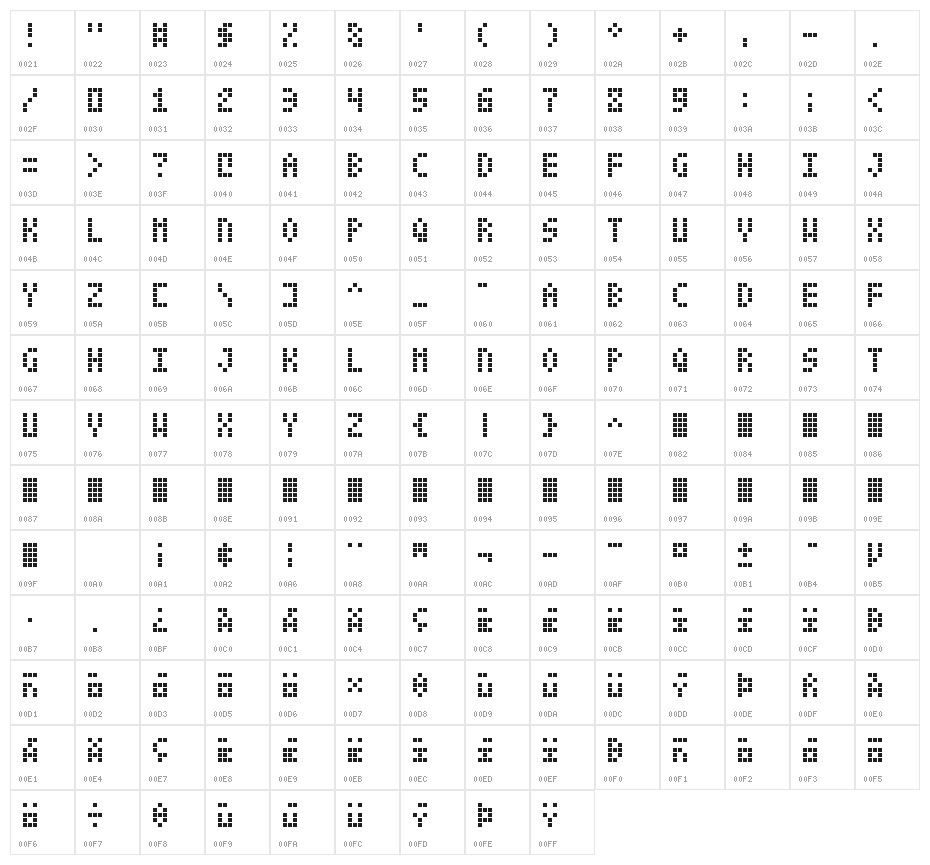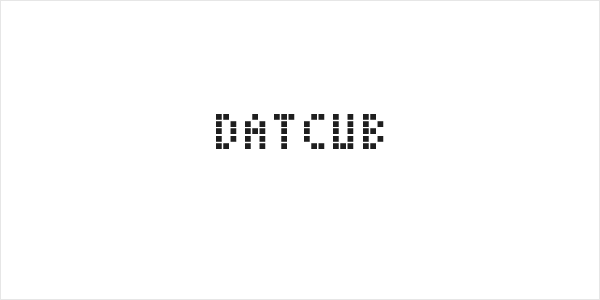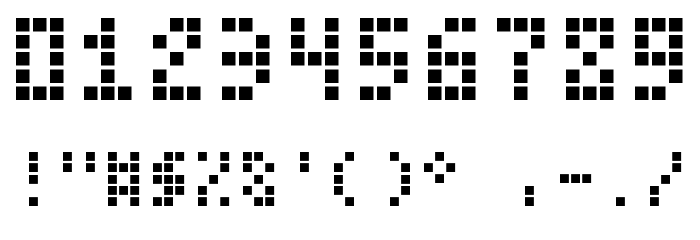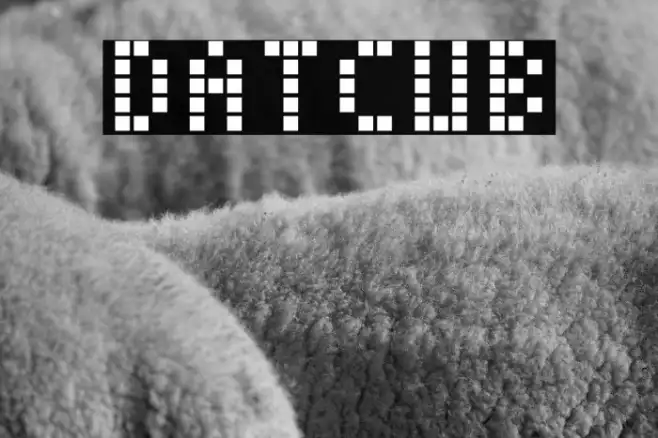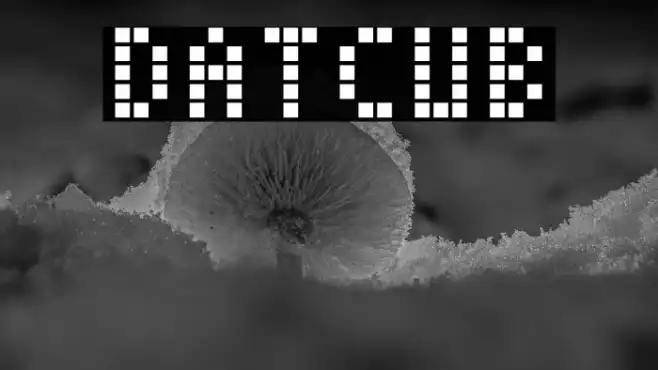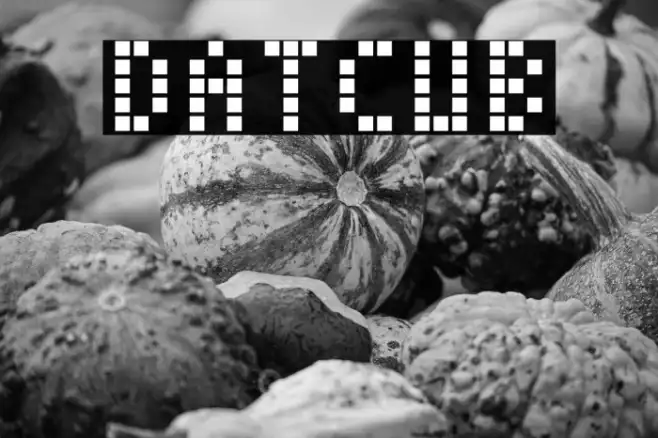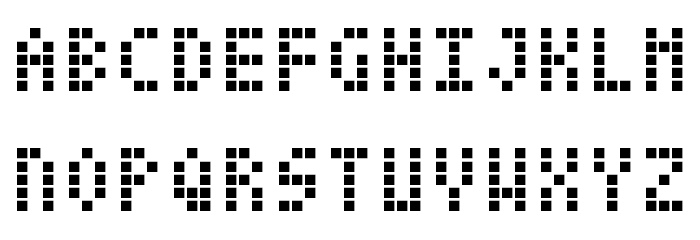
DatCub Font
DatCub Description
This font features a unique, pixelated design where each character is constructed from a grid of small squares. The geometric and modular appearance gives it a digital, retro feel reminiscent of early computer displays or video games. Each letter and number is clearly defined, maintaining legibility despite the unconventional style. The uniformity in the square grid structure provides a consistent visual rhythm across all characters. This font is particularly striking in its ability to convey a sense of technology and nostalgia simultaneously, making it ideal for projects that aim to evoke a digital or vintage aesthetic.
| Use Case | Headlines, Logos, Digital displays |
| Proposed Projects | Ideal for digital art, retro-themed designs, video game graphics, and tech-related branding. |